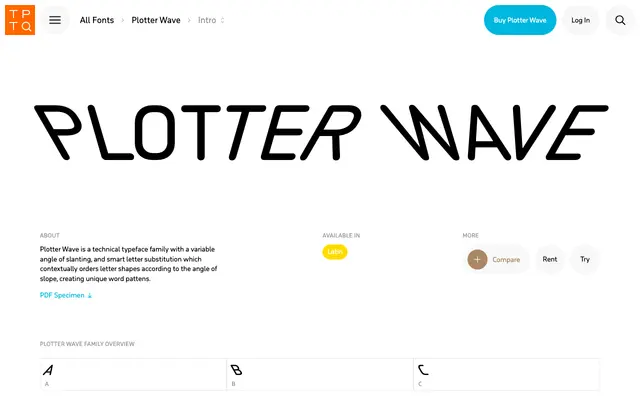
Plotter Wave
An experimental display family from Typotheque built around wave-constructed letterforms, issued in three city-named variants.
Three distinct subfamilies, Amsterdam, Bengaluru and Copenhagen, each offer a different interpretation of letterforms drawn from plotter-style wave construction. The references to Dada, Surrealism and Futurism signal its orientation toward art-directed and editorial contexts rather than text setting. Suited to posters, cultural institution work and any project where letterform as image is the point.
Plotter Wave is an experimental display family with distinct regional subfamilies named after cities; its wave-based letterform construction and references to Dada, Surrealism and Futurism place it firmly in the display/experimental category.